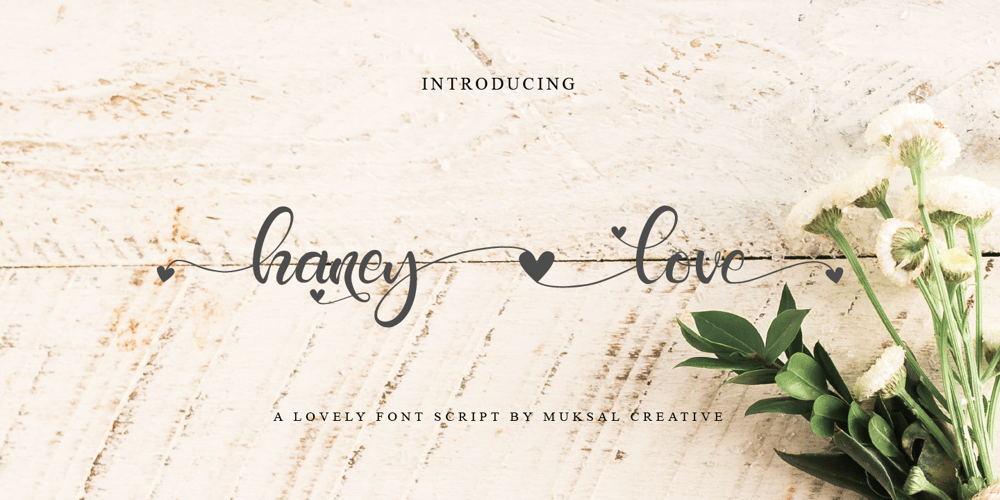
Haney love
Haney love font
Haney love Font Family was designed by Muksalmina and published by Muksal Creatives. Haney love contains 1 styles and family package options. Haney Love feels incredibly elegant and flowing. It looks stunning on wedding invitations, thank you cards, quotes, greeting cards, logos, business cards and every other design which needs a handwritten touch. It features a varying baseline, smooth lines, gorgeous glyphs and stunning alternates.